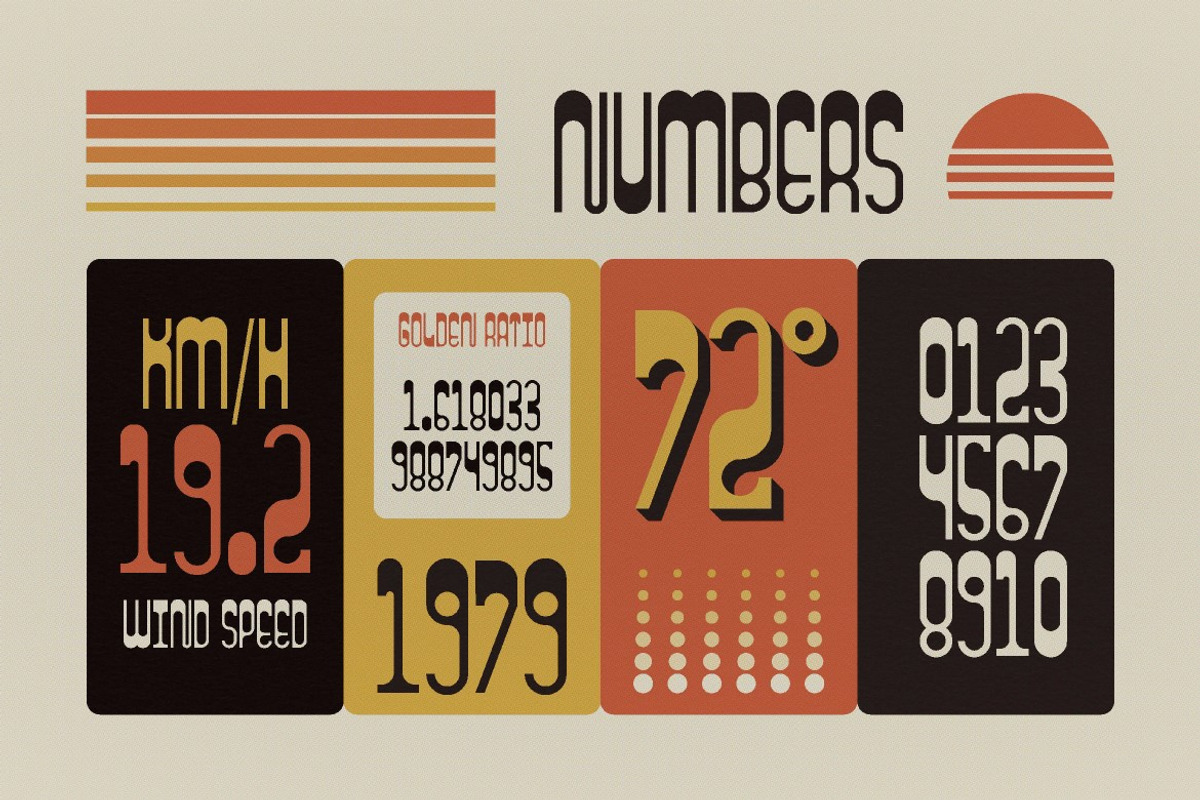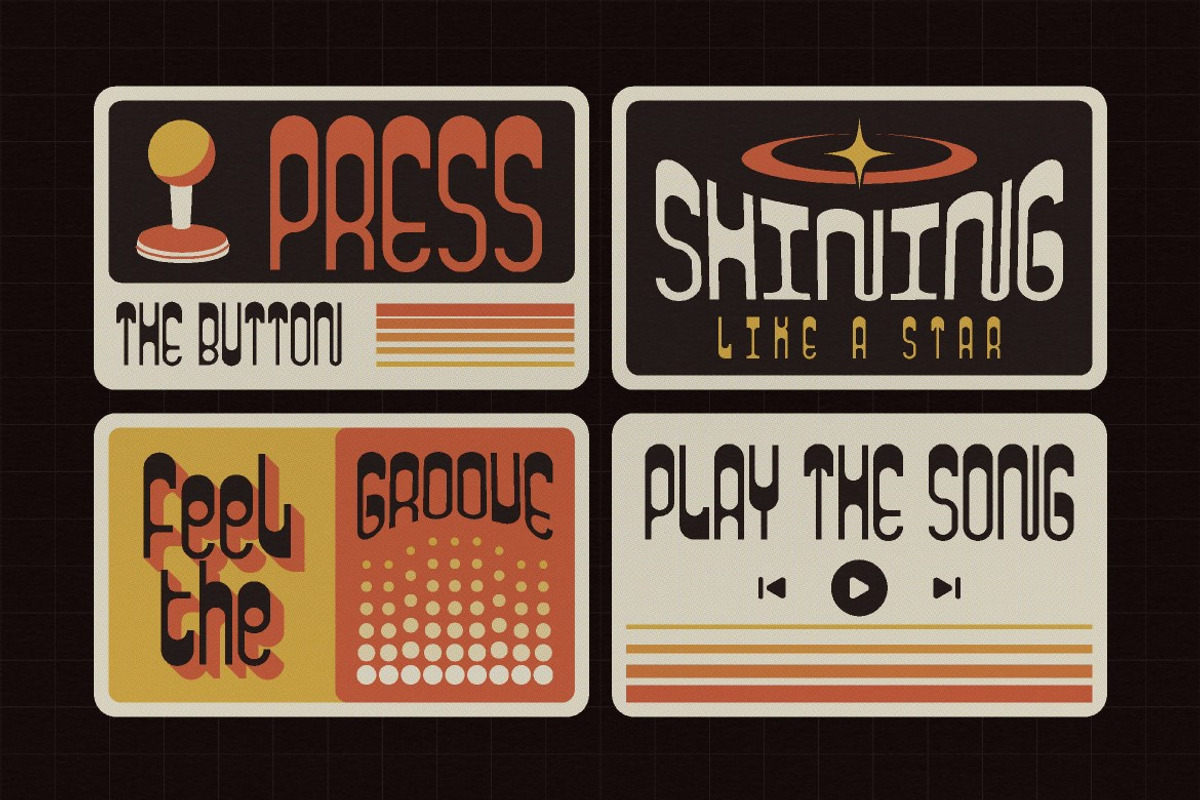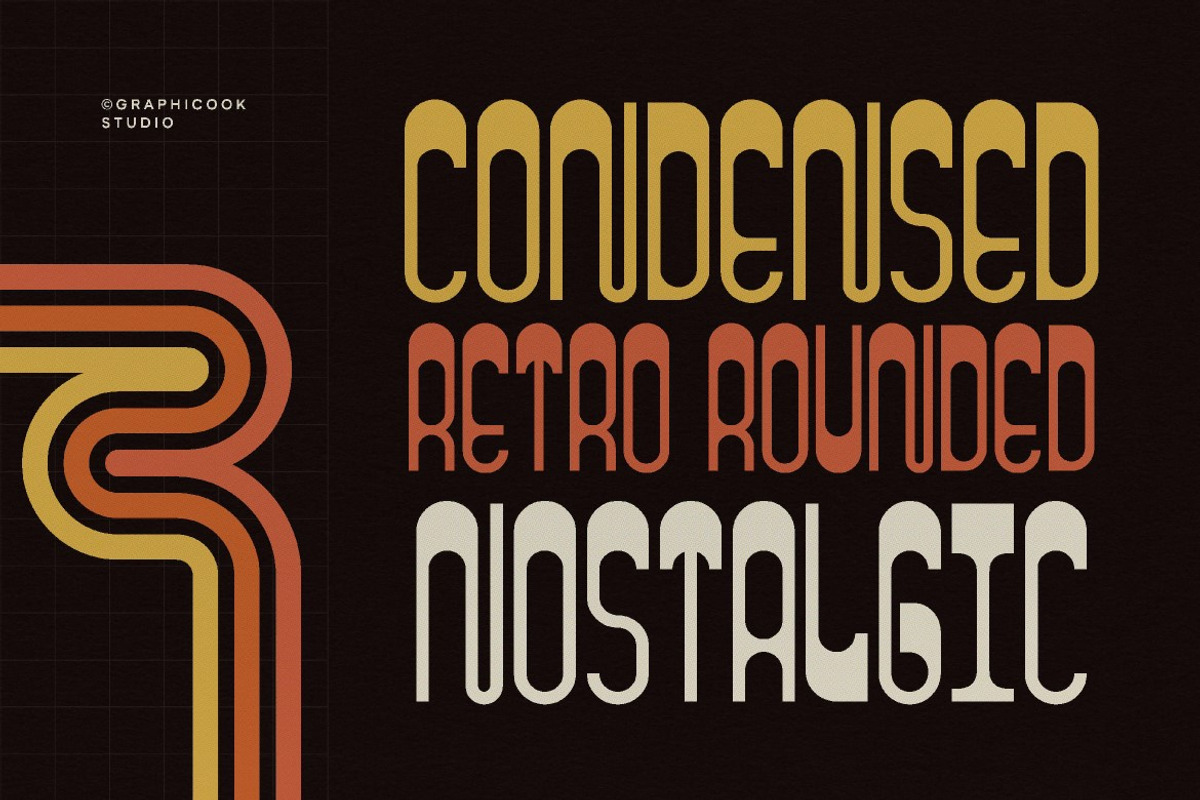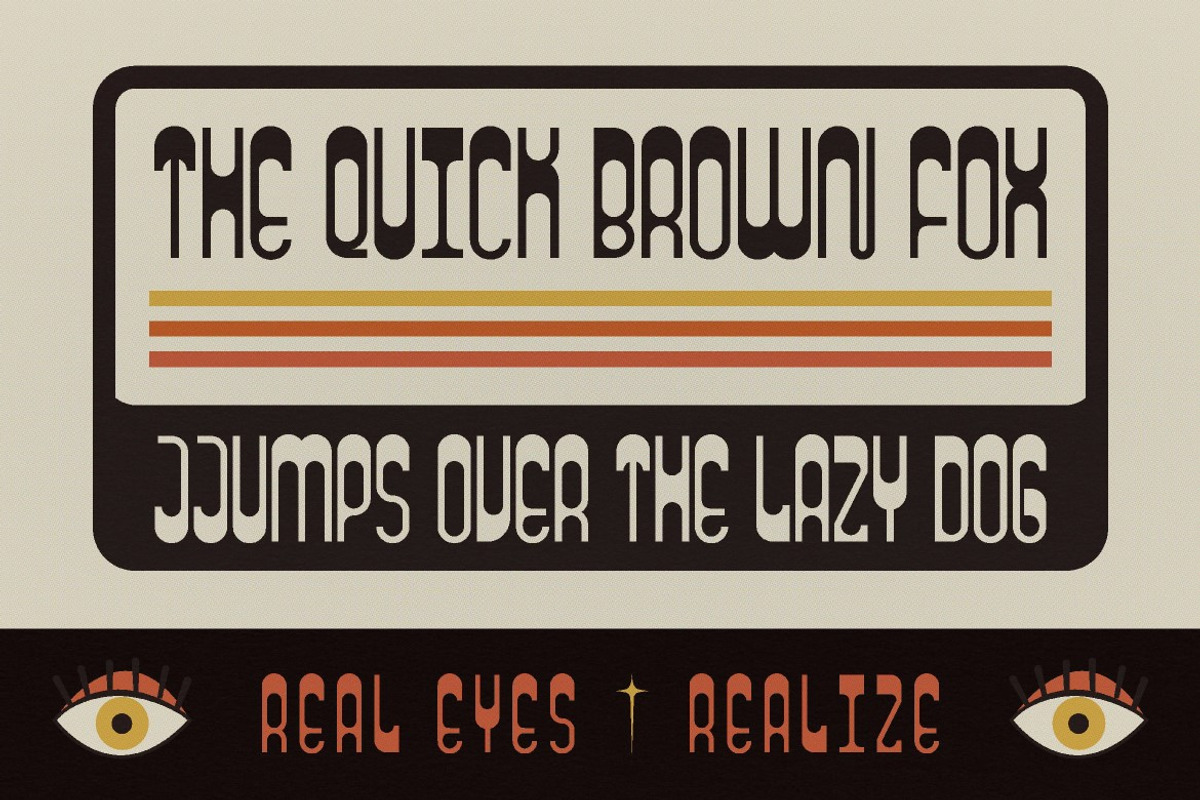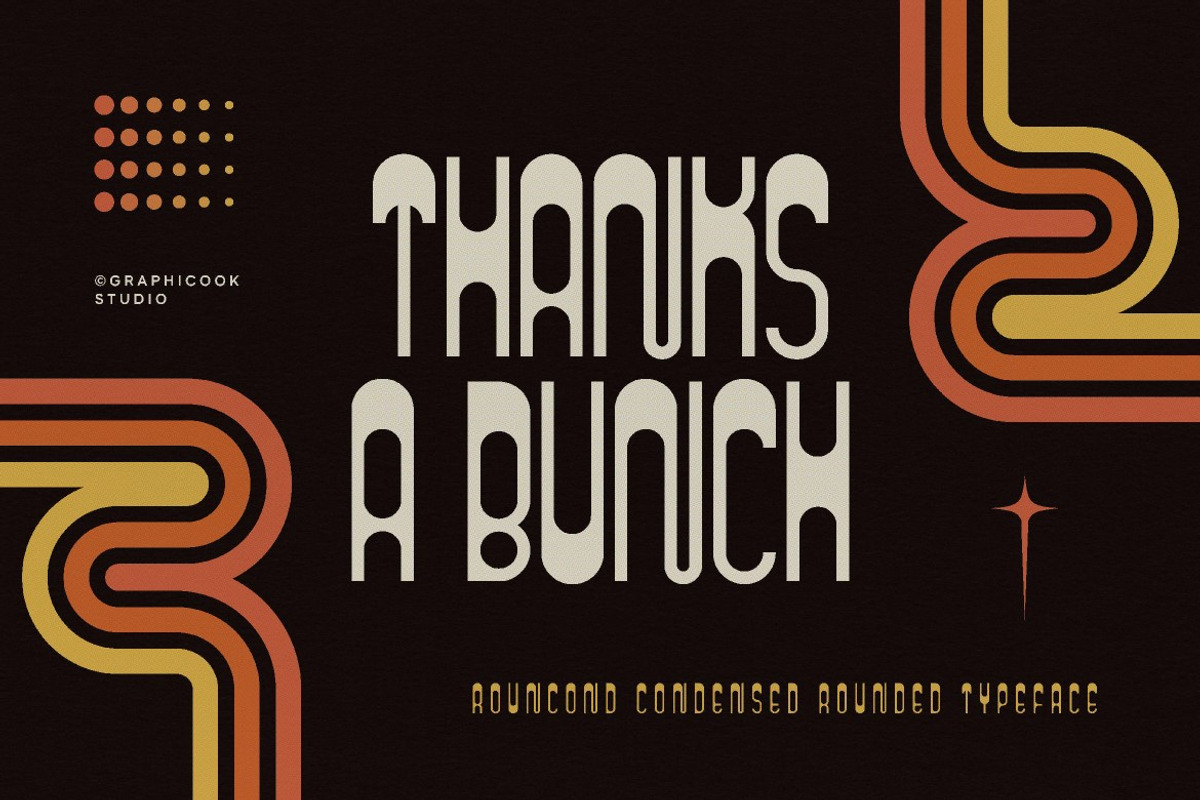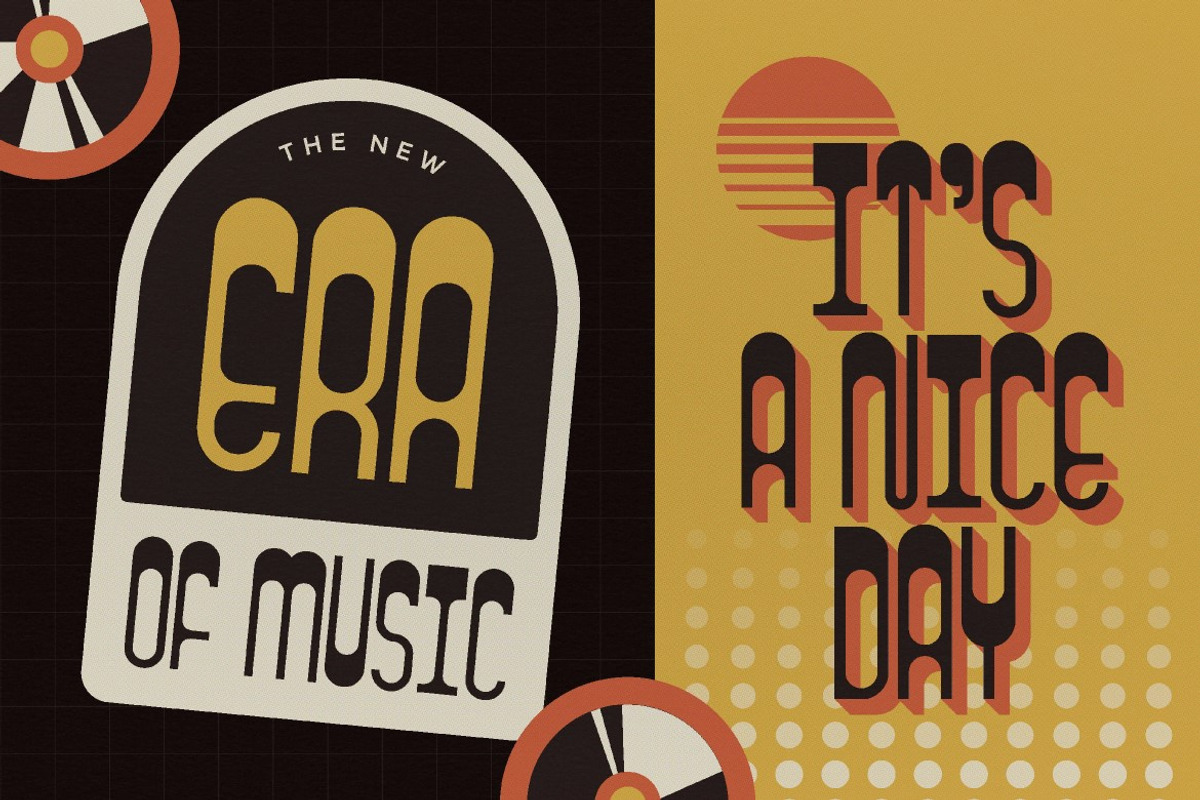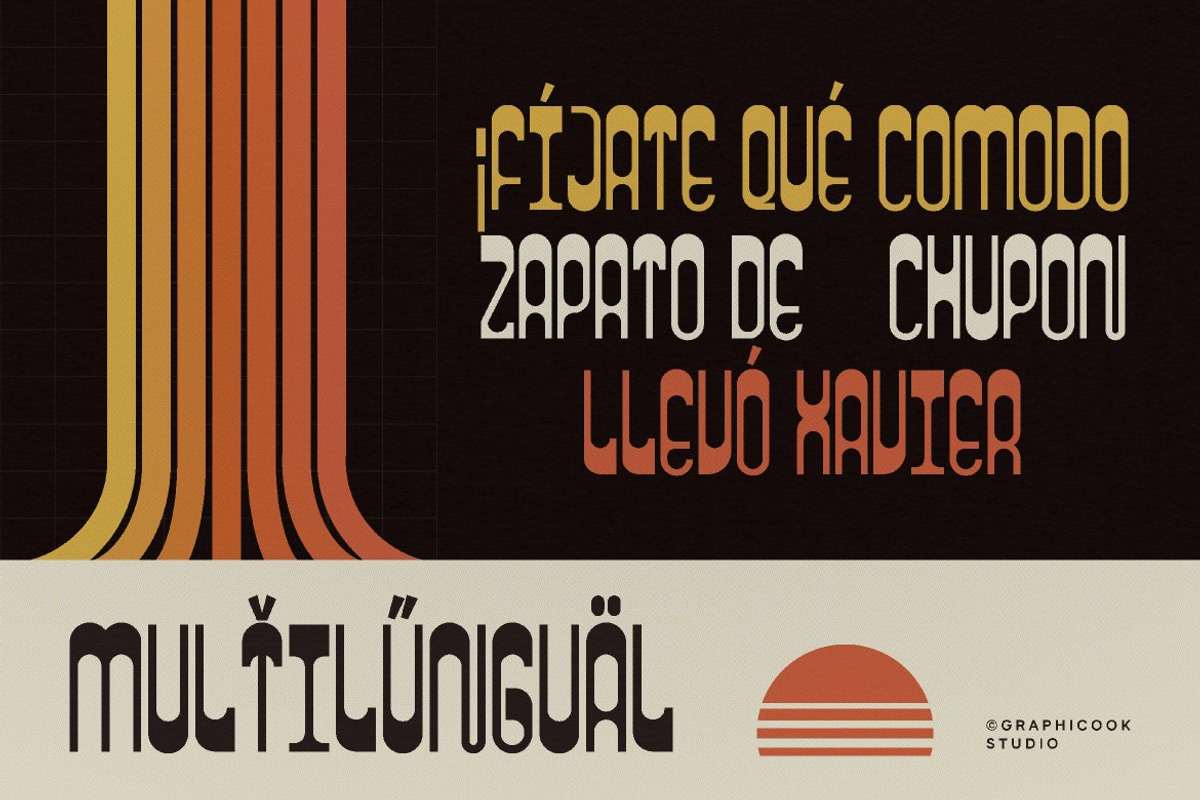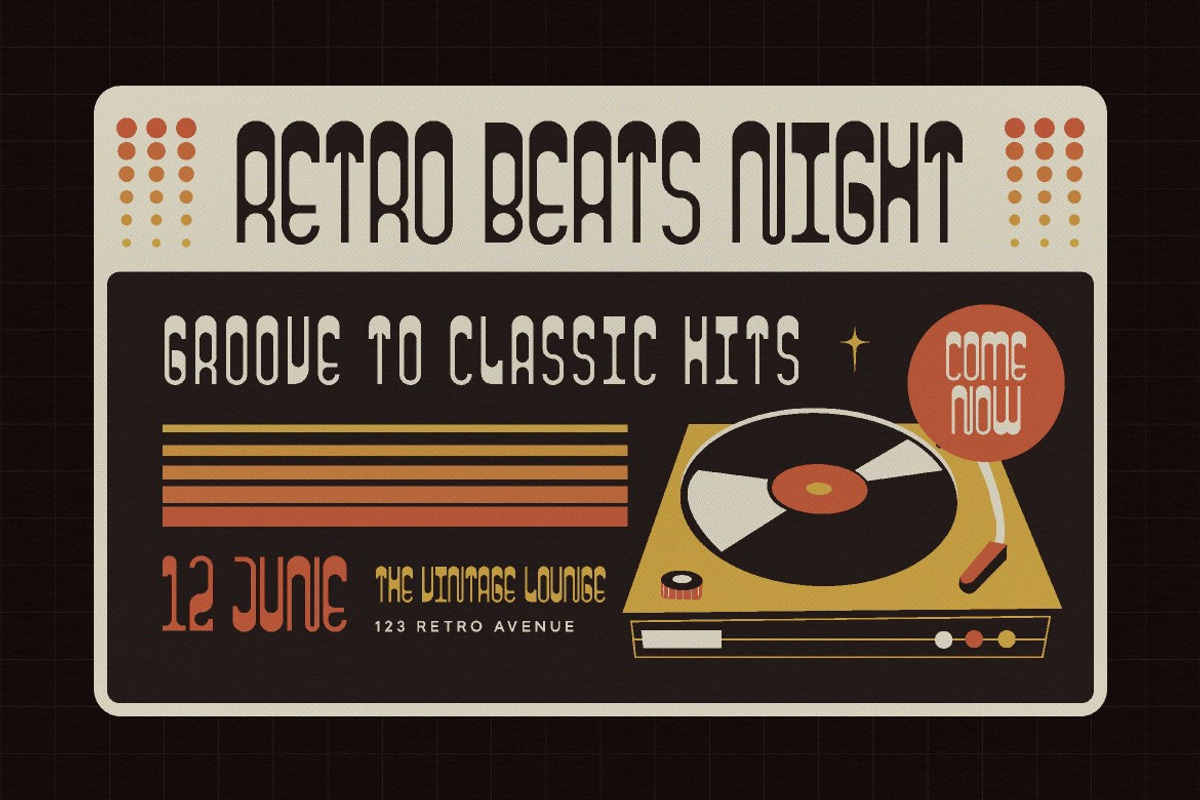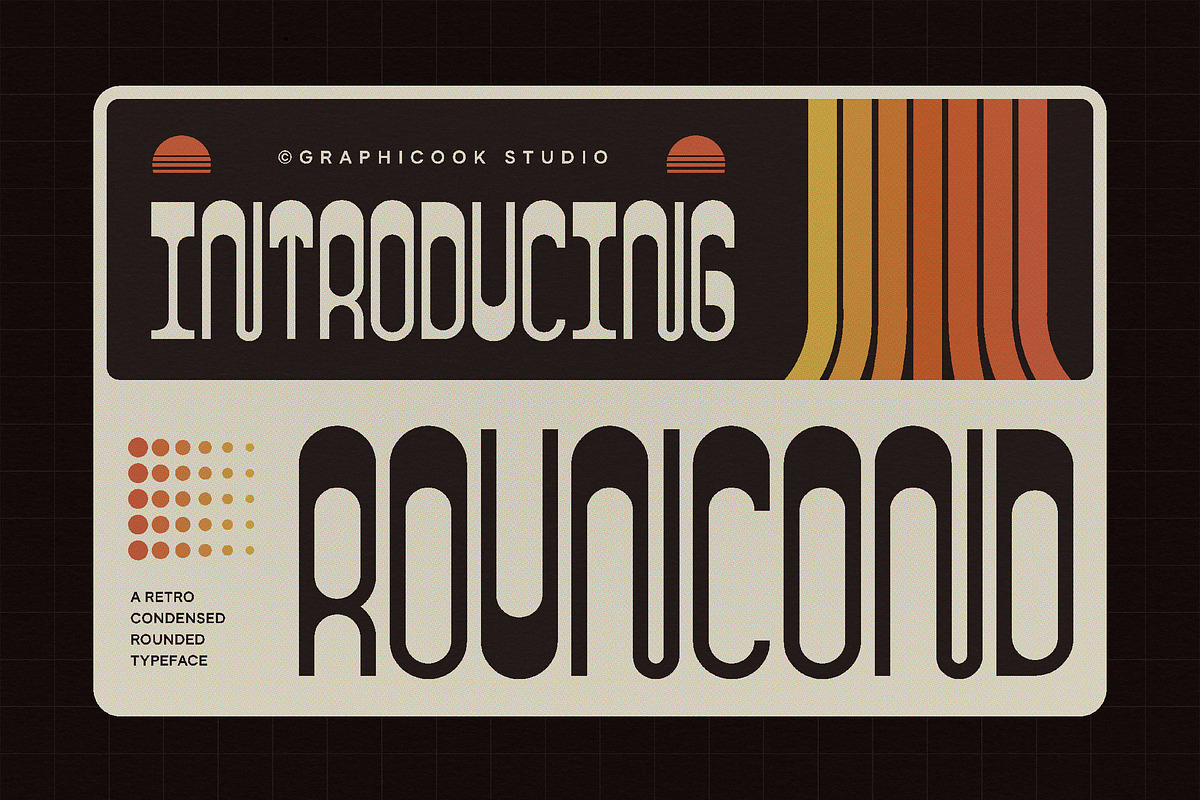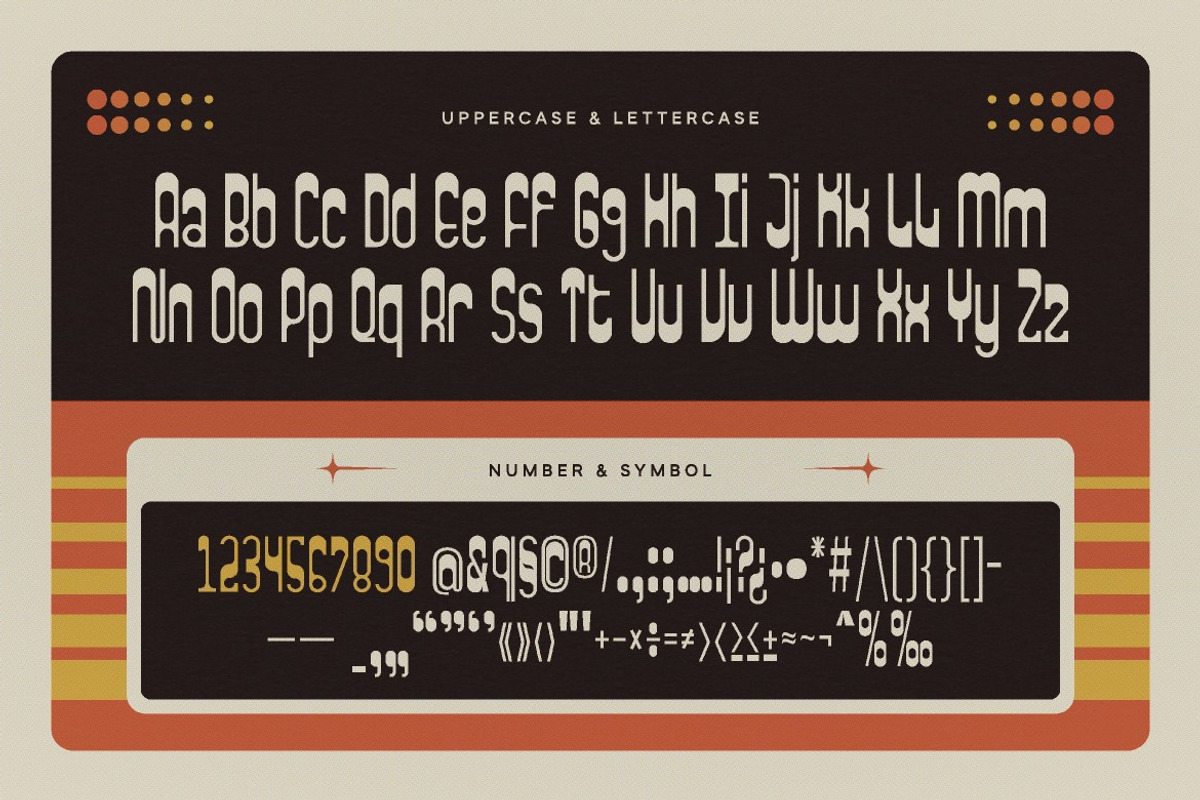
Rouncond
Rouncond is a blend of rounded and condensed styles, inspired by modern Bauhaus design. Perfect for posters, logos, album covers, and more.
Rouncond is perfect for headlines, logotypes, magazines, packaging, quotes, movies, games, cover albums, book covers, and flyers, it's a perfect solution for creating eye-catching designs that stand out in any context.